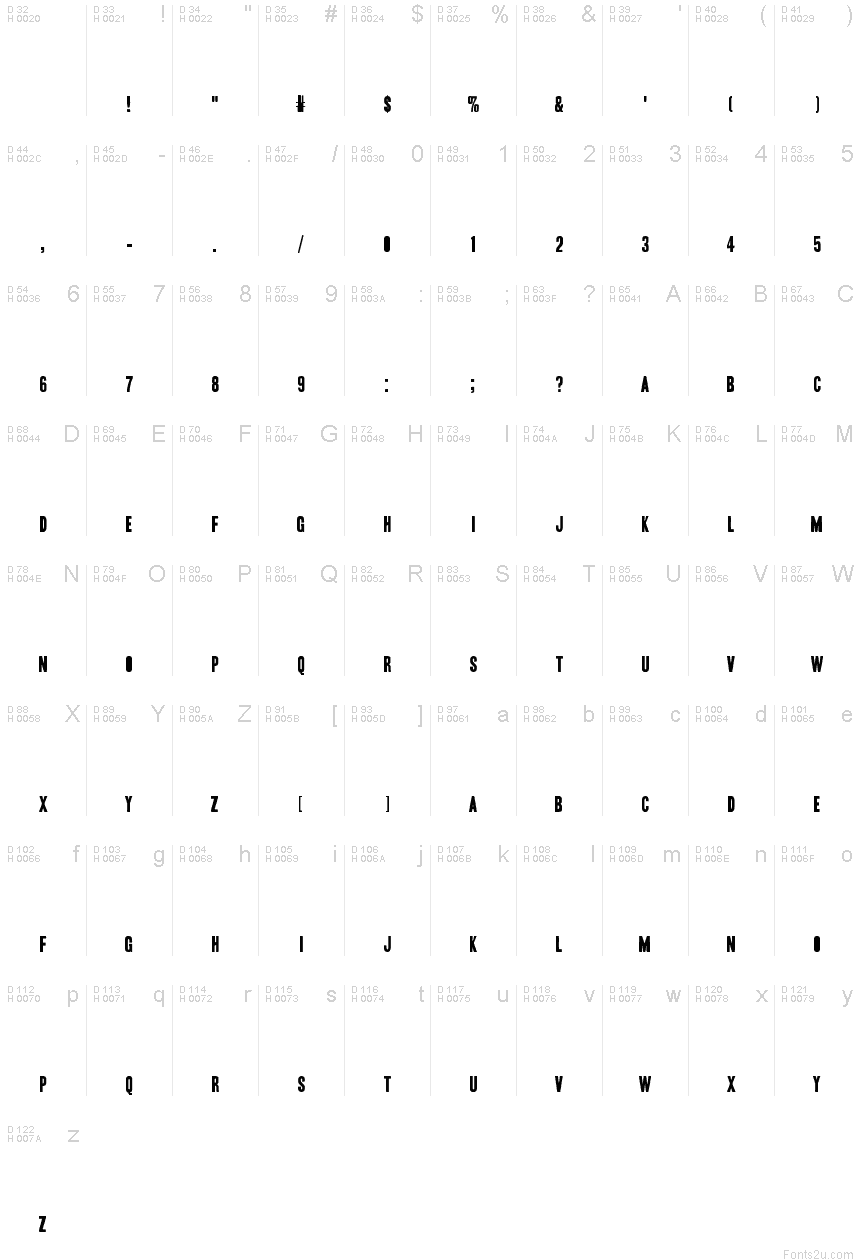
Headline One HPLHS
Headline One HPLHS font by Andrew Leman is a free vintage sans serif font with the punchy weight of old newspaper headlines. Digitized from Toronto Star originals, it has tall, compressed letters, inky edges, and a slightly rough finish that feels pulled straight from a clattering press. The tight spacing and blocky forms grab attention fast, making even short words land with a thud of drama.
Using Headline One HPLHS, you can channel early‑20th‑century grit in horror posters, pulp book covers, retro newspaper mastheads, podcast artwork, zines, and event flyers. This free font shines when you set it big and bold, then pair it with a clean, neutral text sans to carry longer copy underneath.